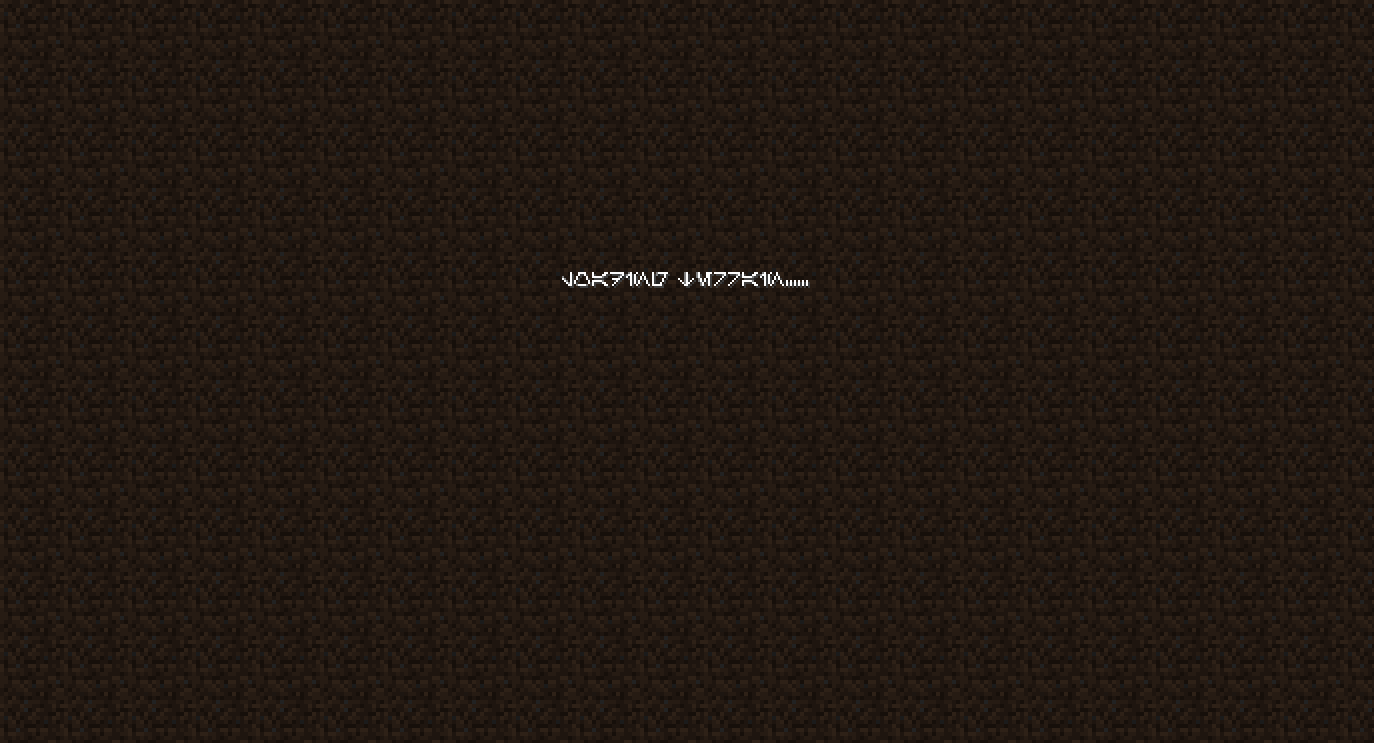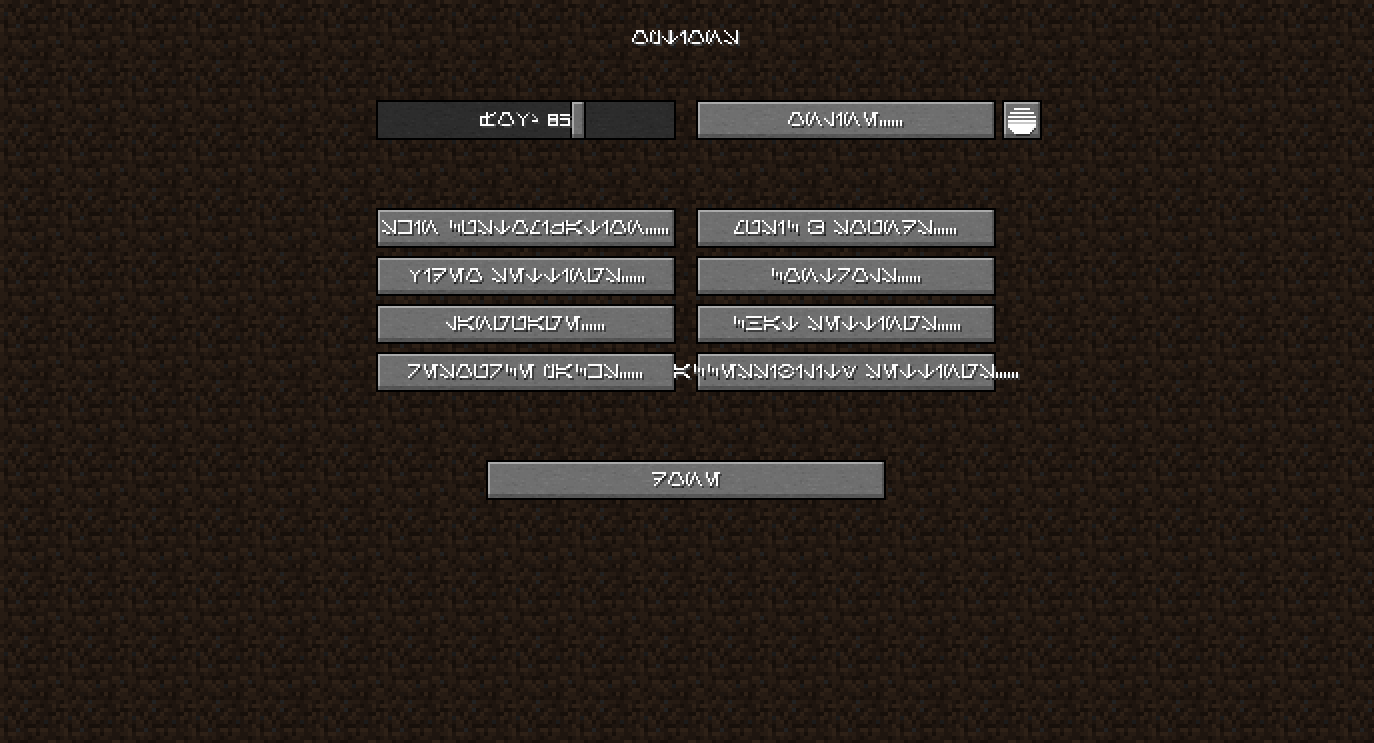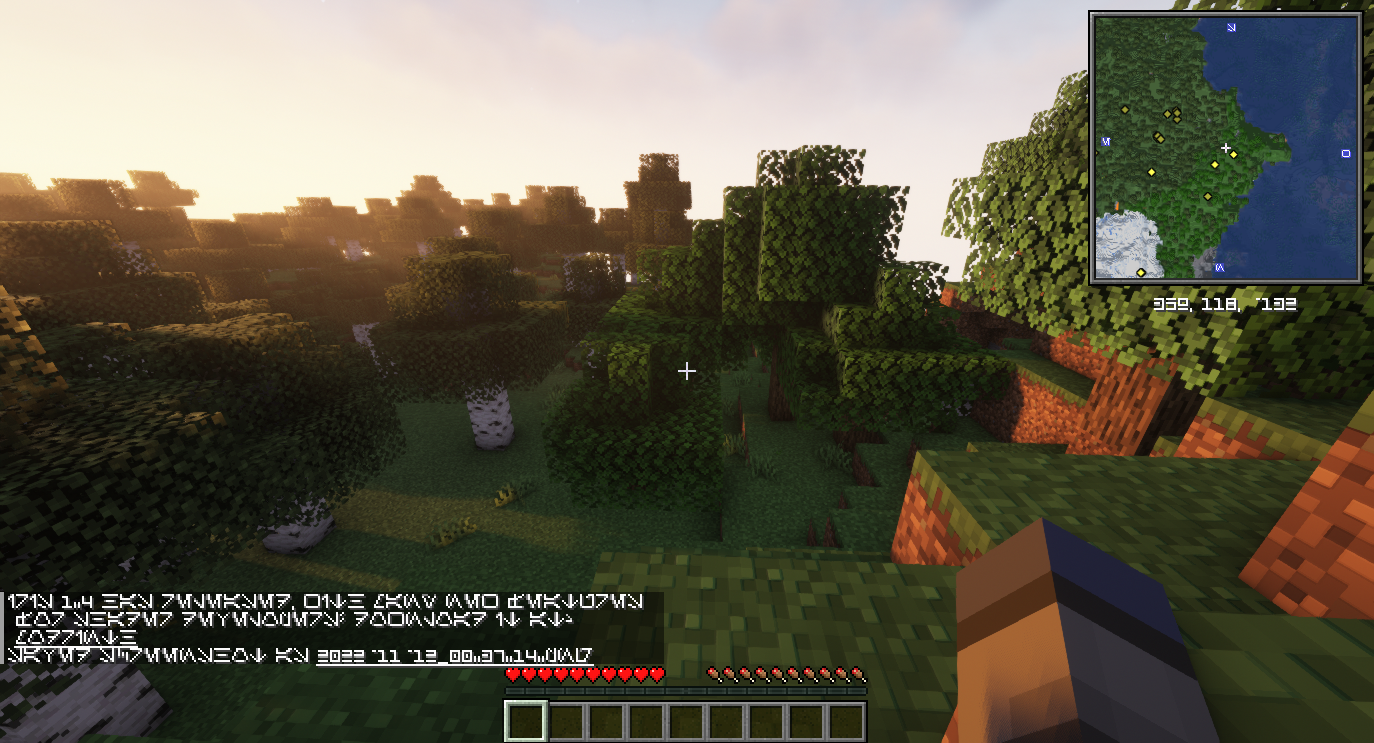
In a galaxy far far away.. "Aurebesh" is a thing
Wanna replace your default English written game to the Star Wars universe's fictional language Aurebesh?
Well, now you can!
Weither you want that "full Star Wars experience", to learn how to read and write Aurebesh, or you're just bored, this pack is just for you